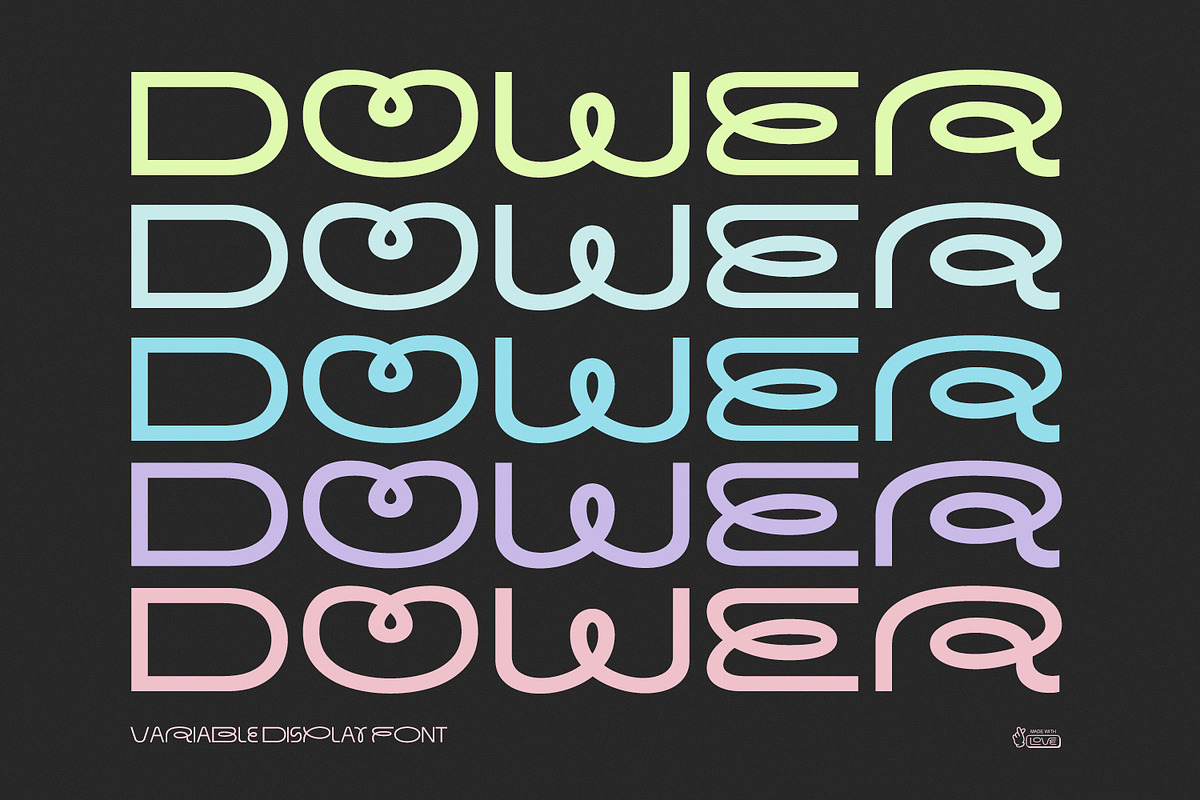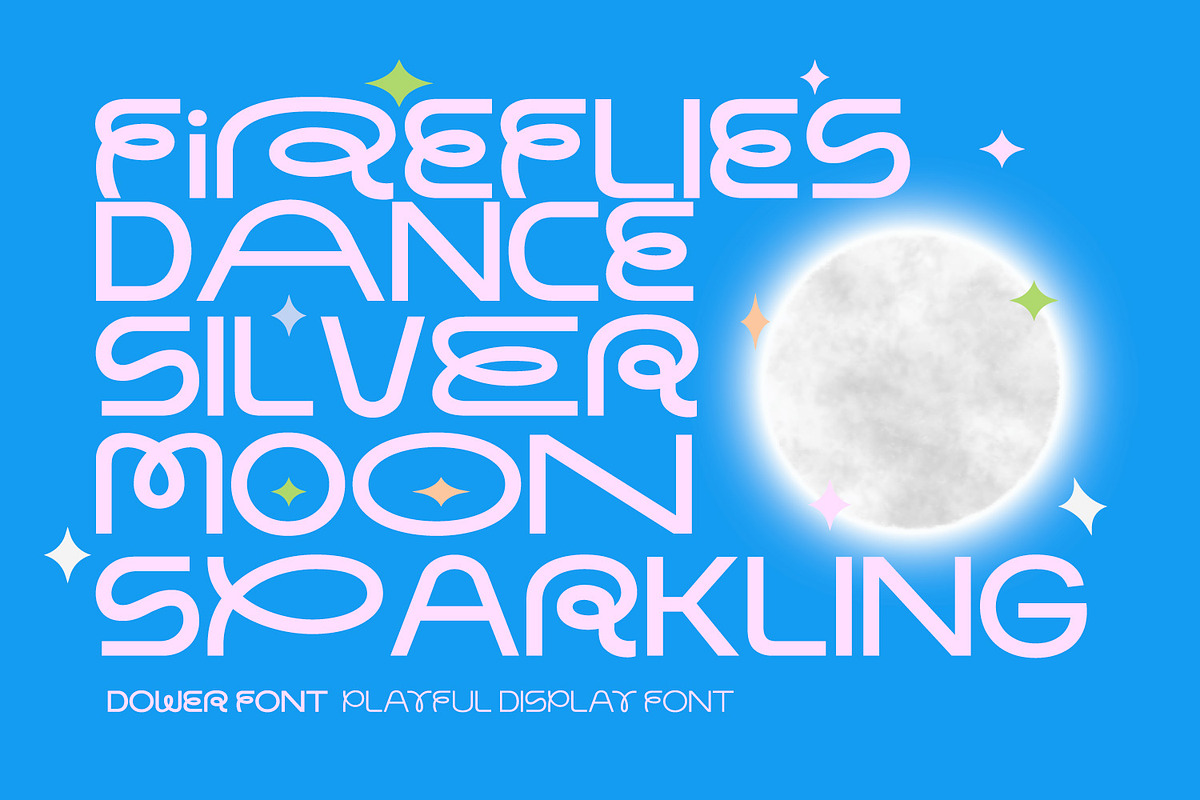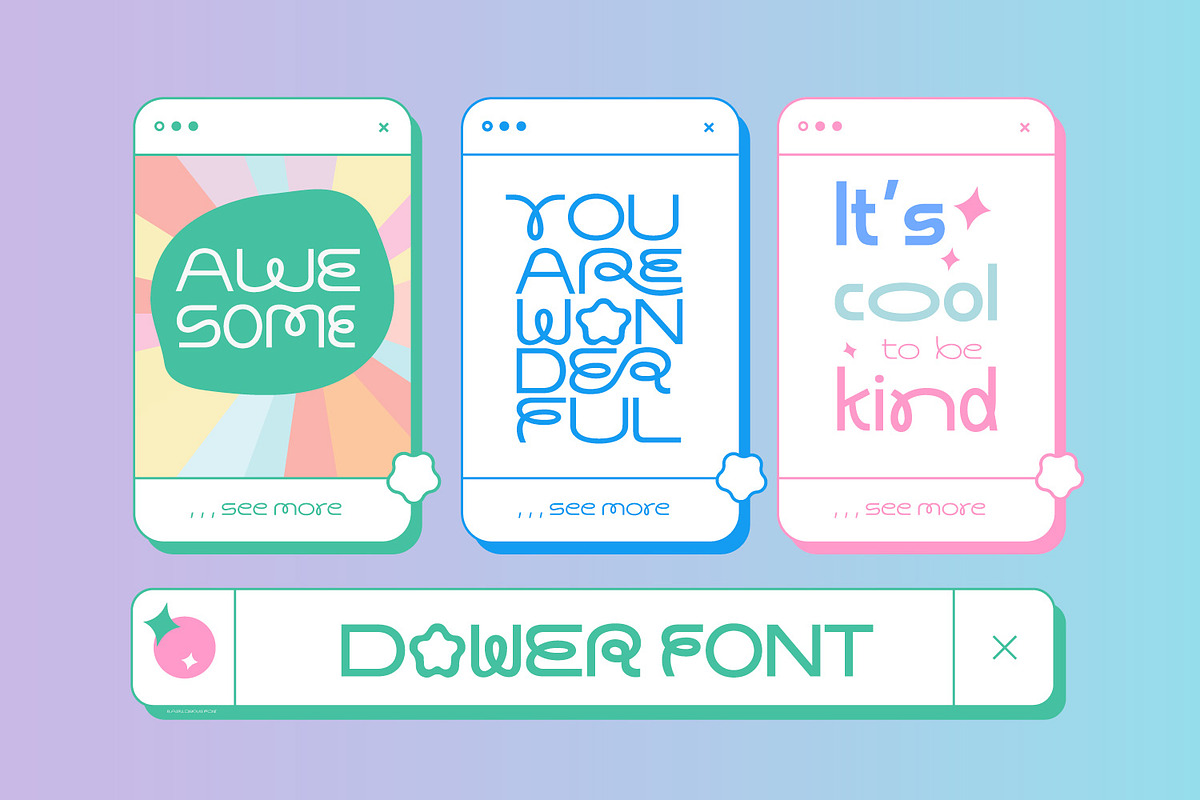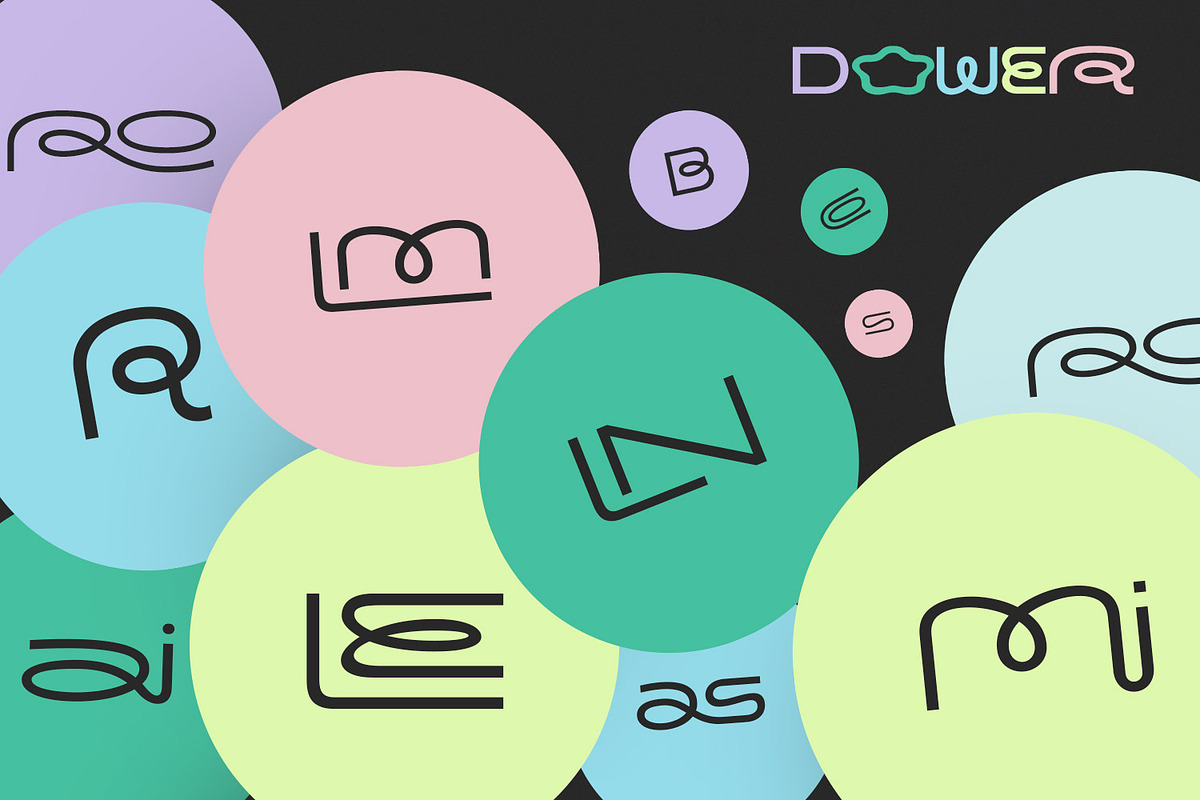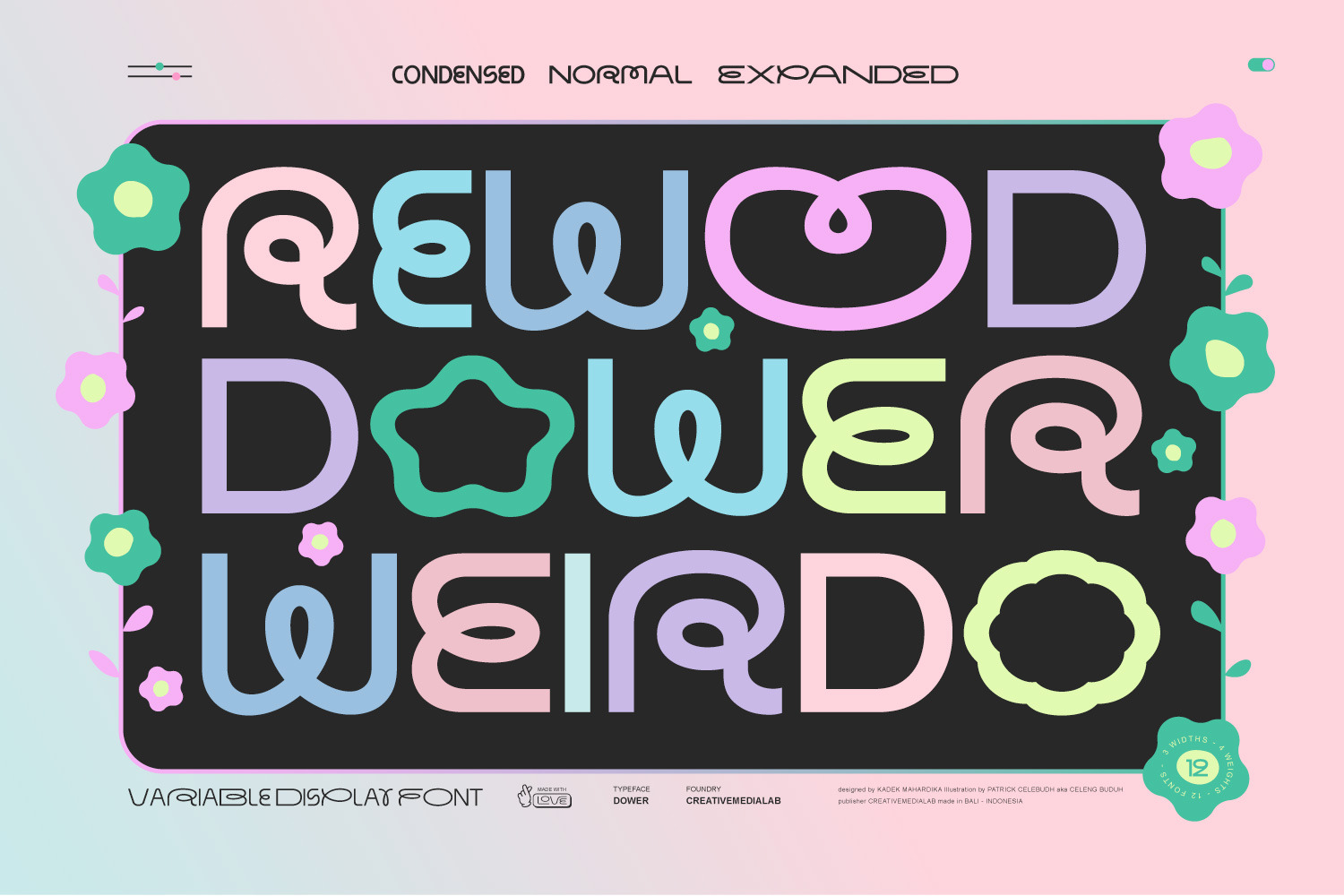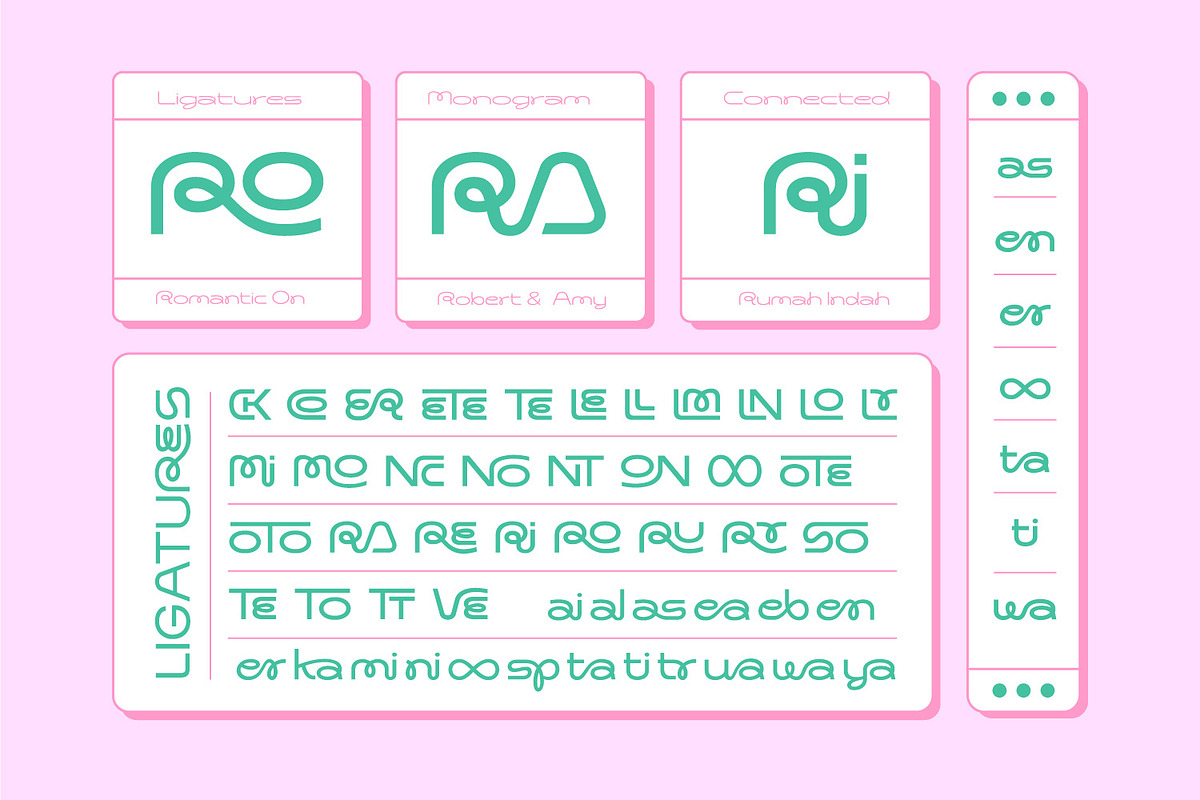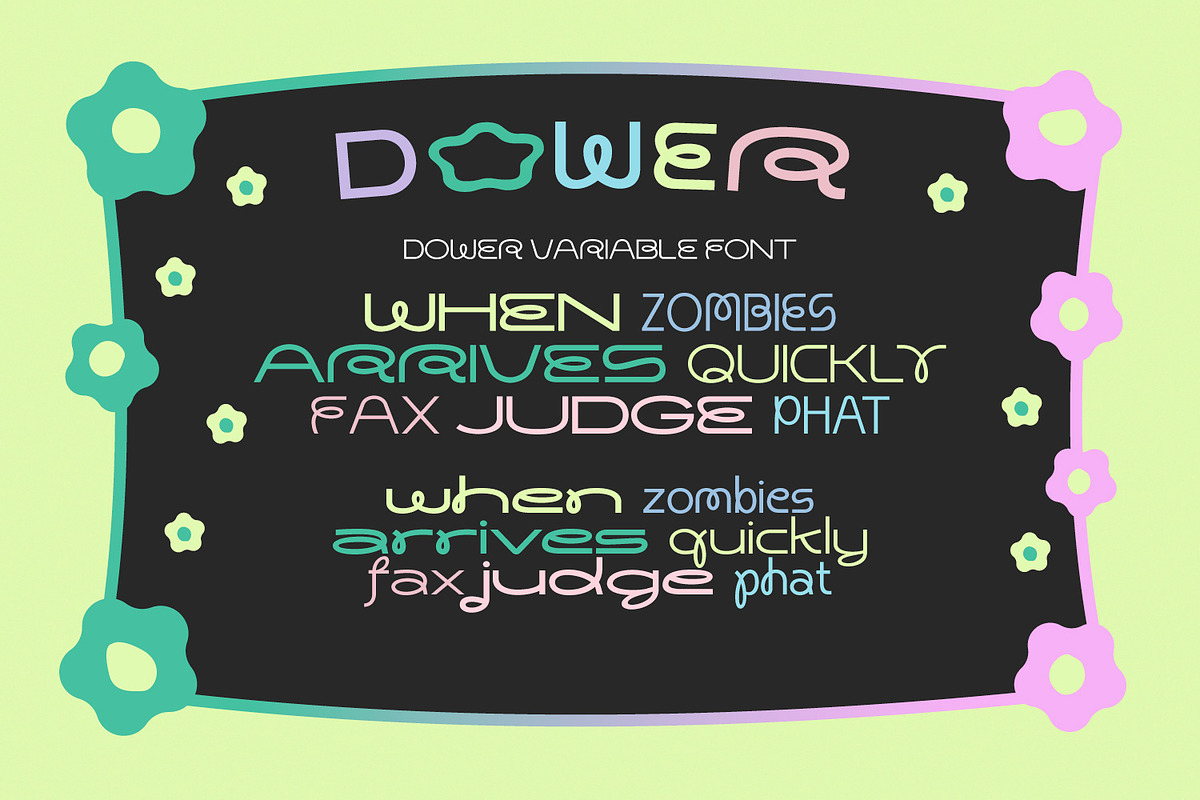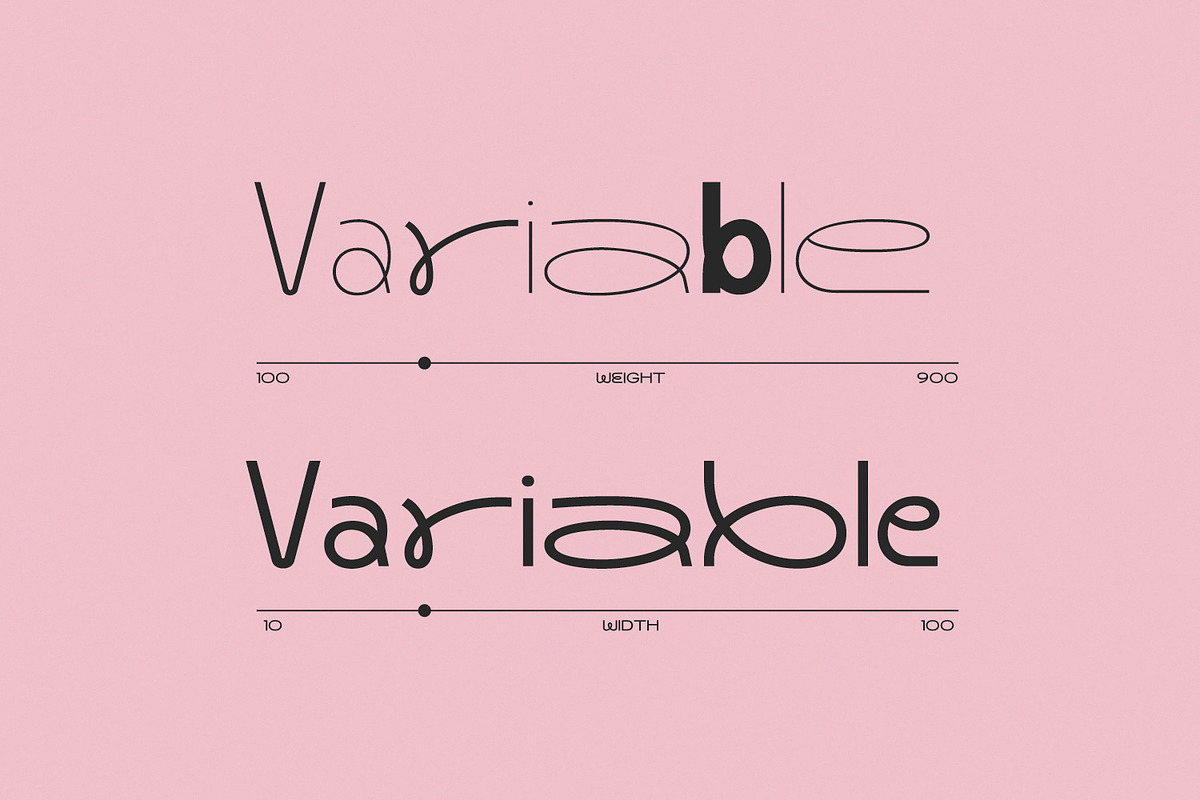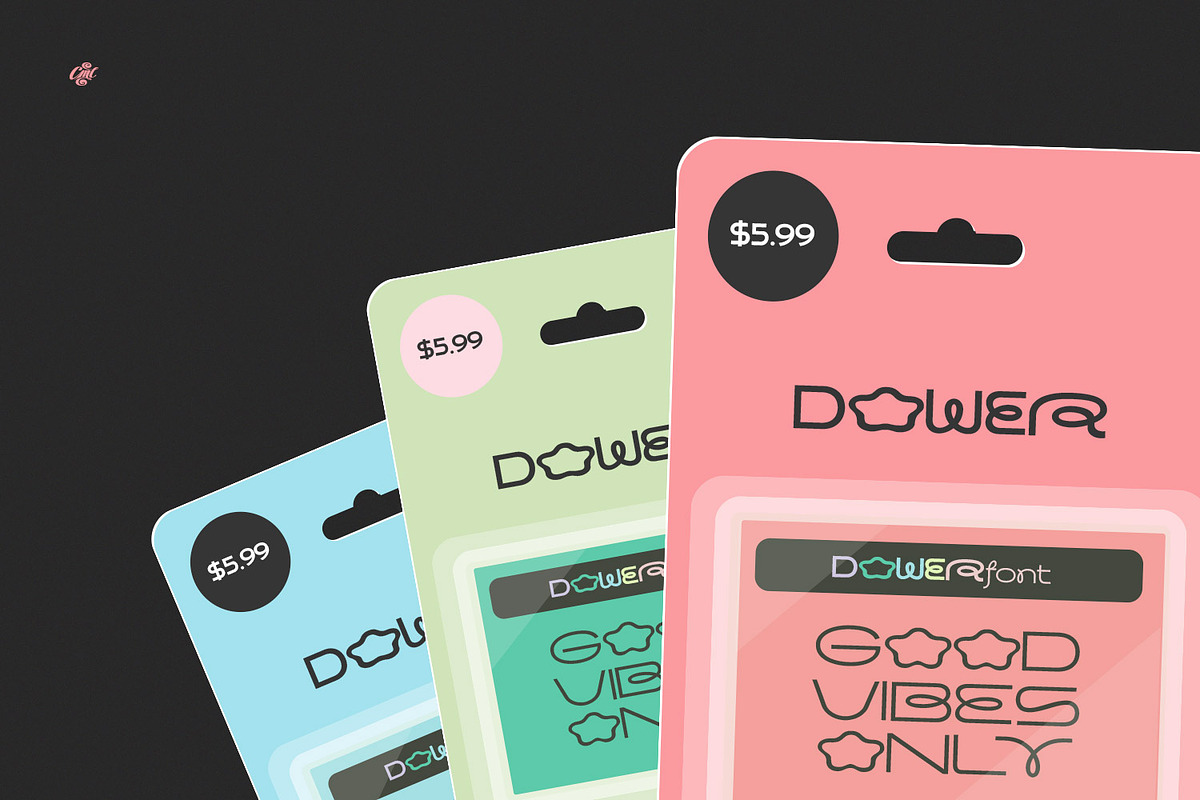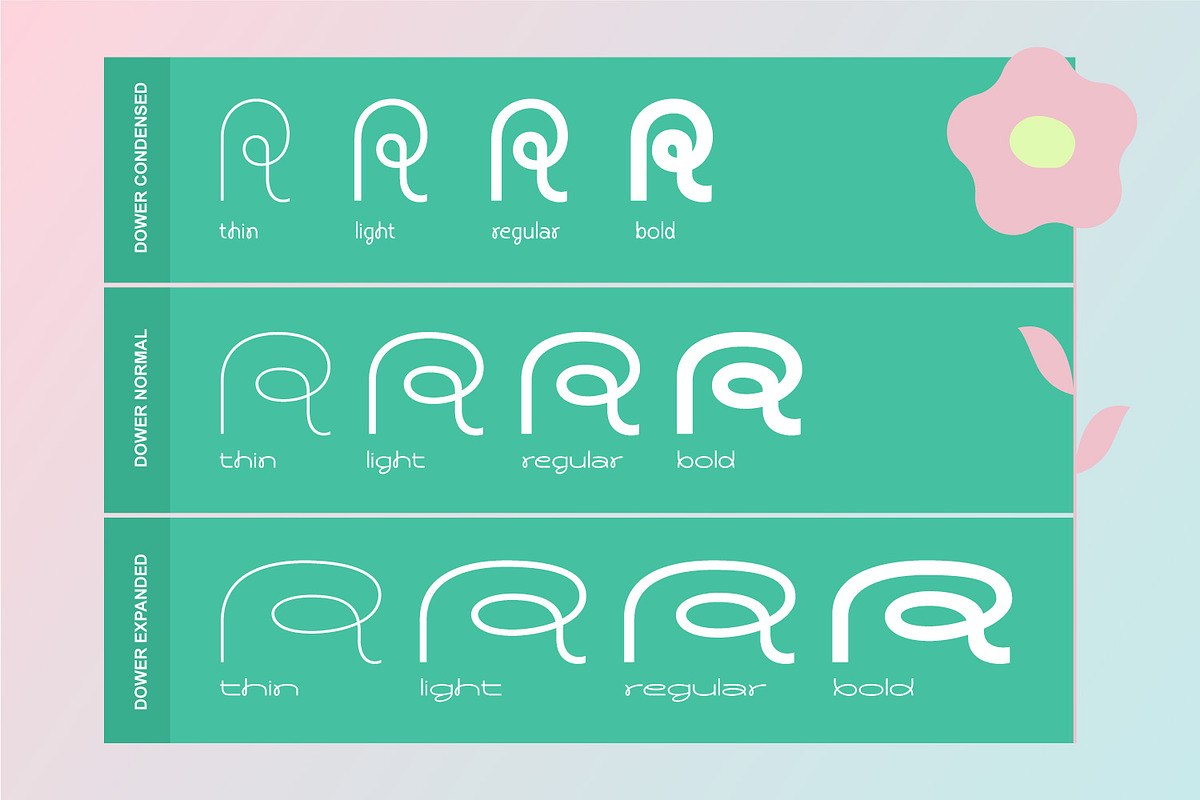
Dower - Playful display font
Dower is a playful decorative display font inspired by doodle style and hand-drawn lettering. This geometric sans serif contained three widths: Condensed, Normal and Expanded, four styles each, including dozens of ligatures. Also a variable format that has two slider axis which can generate hundreds of weights and styles.